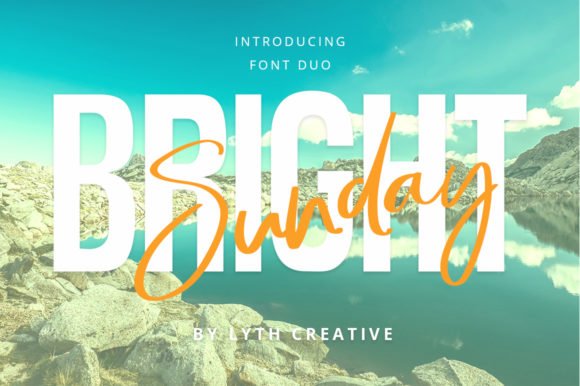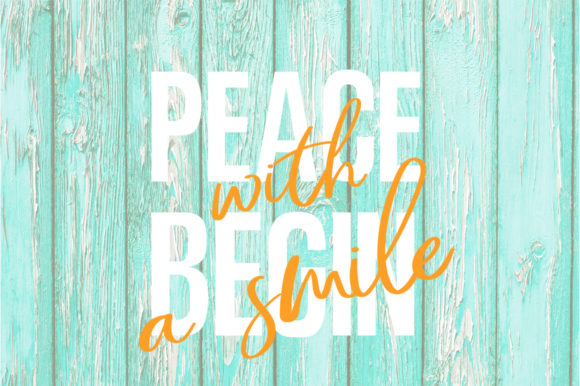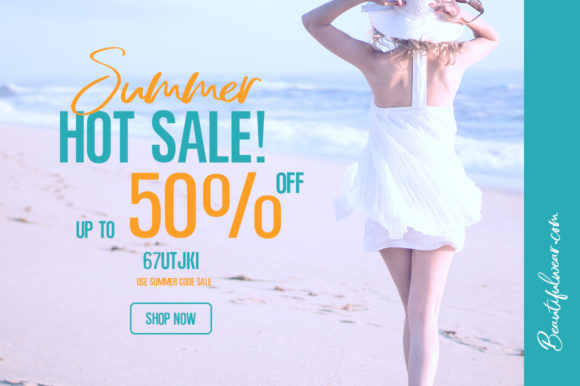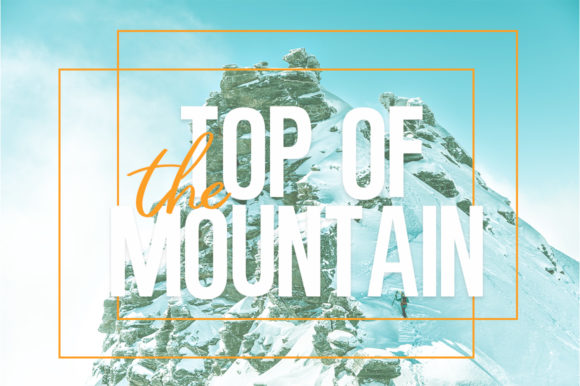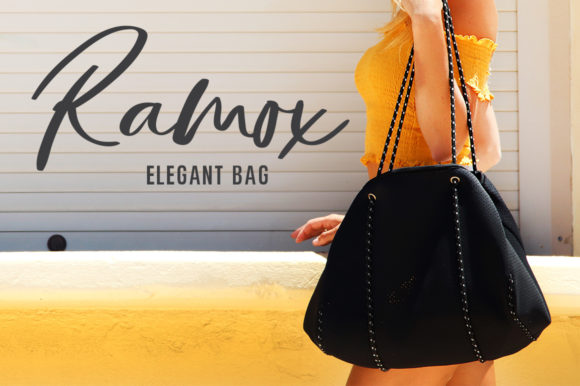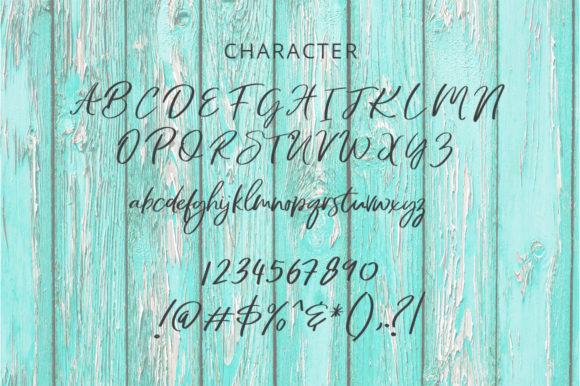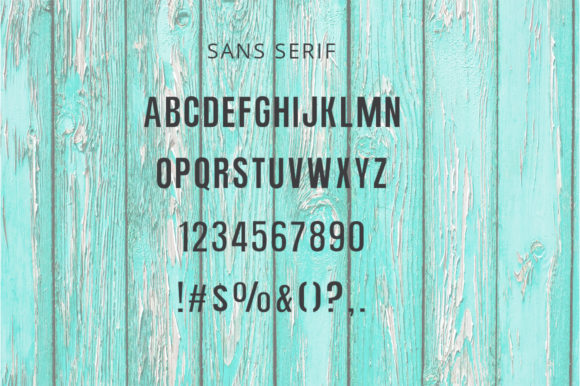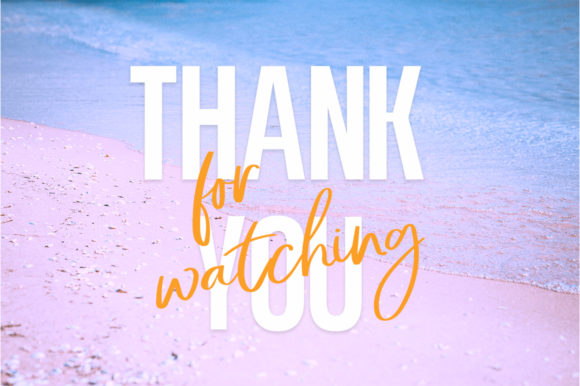
Bright Sunday Font
About Bright Sunday Font
Bright Sunday is a cool and charming font duo. When combined, these two fonts will add a unique spark to any design project!